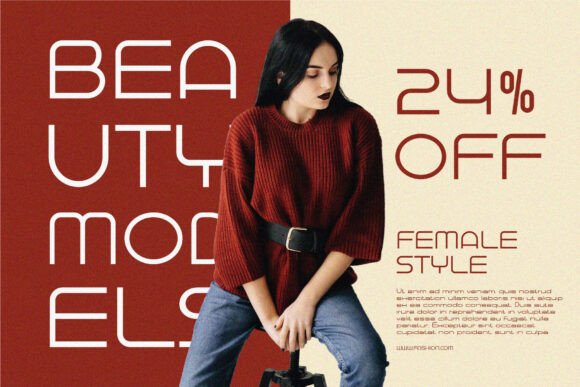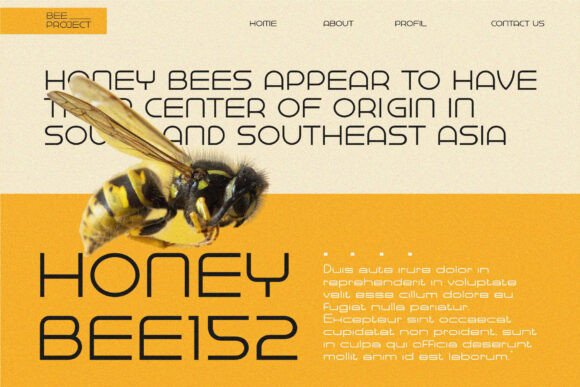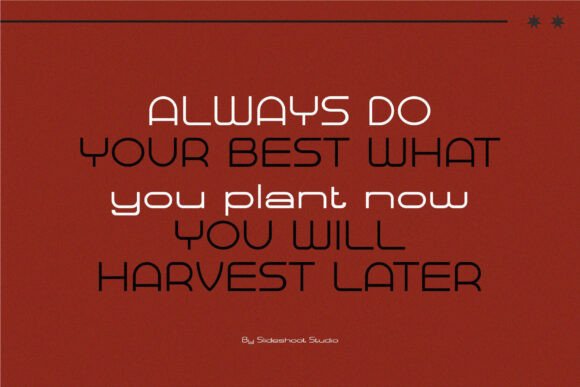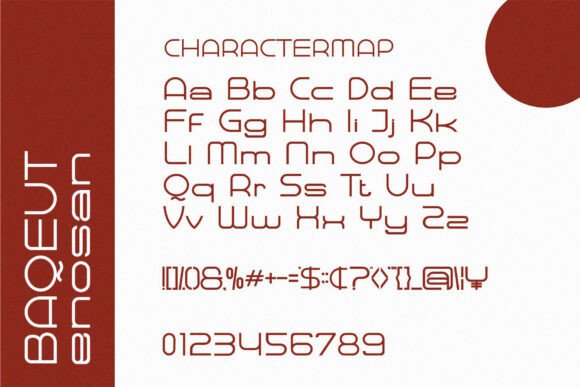
Introduction to Baqeut Enosan Font
Introducing Baqeut Enosan – An elegant modern sans serif with ton of stylistic alternates to choose.
Its clean and minimalistic works wonderfully on its own for logos, headlines, posters, packaging and many more And with Three different weights to choose, your option to create more unique and versatile design is a lot wider.
Baqeut Enosan Font offers exceptional quality and versatility, making it a valuable addition to your design toolkit. Whether you’re creating for personal projects or commercial use, Baqeut Enosan Font delivers professional results.